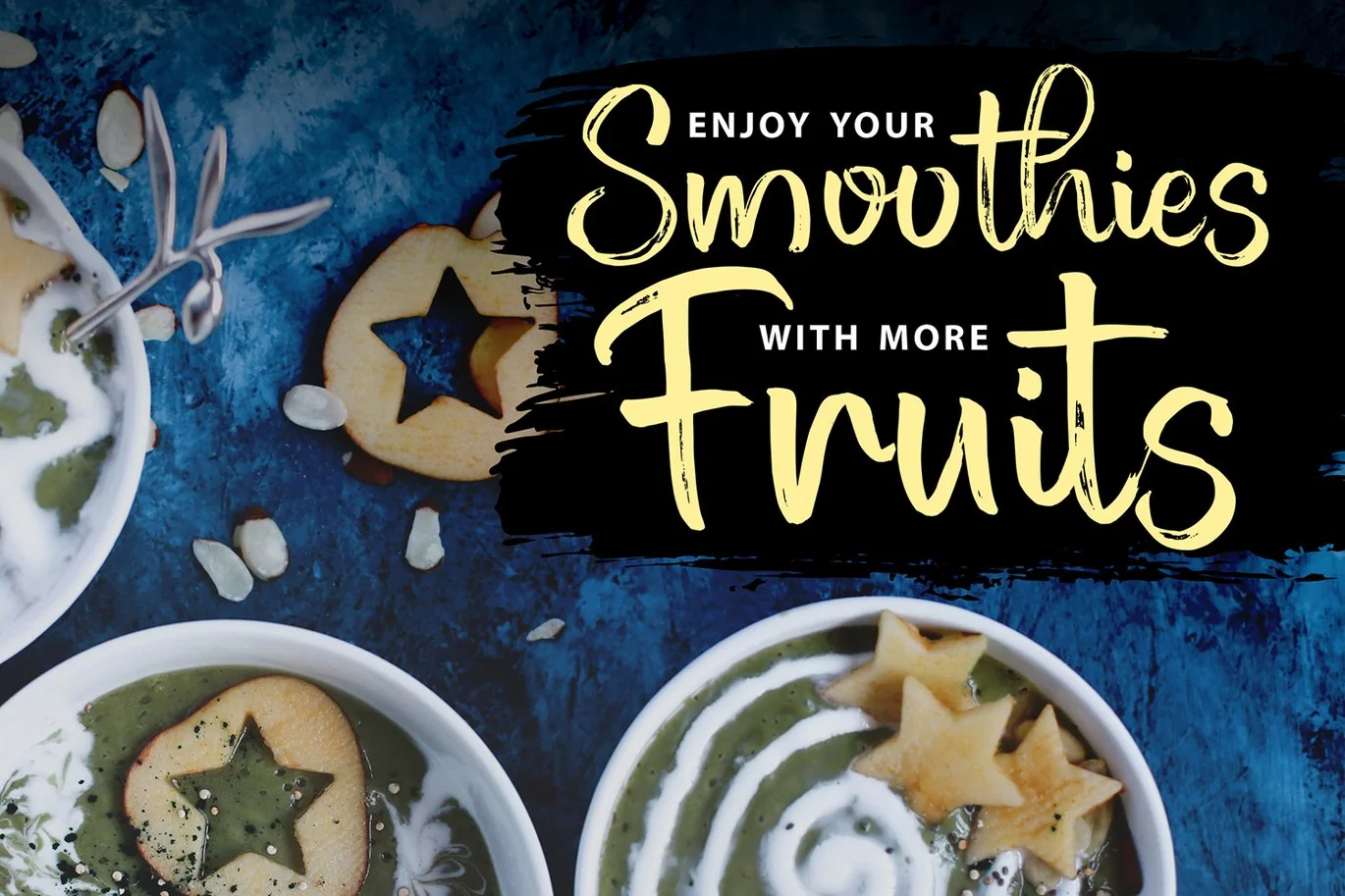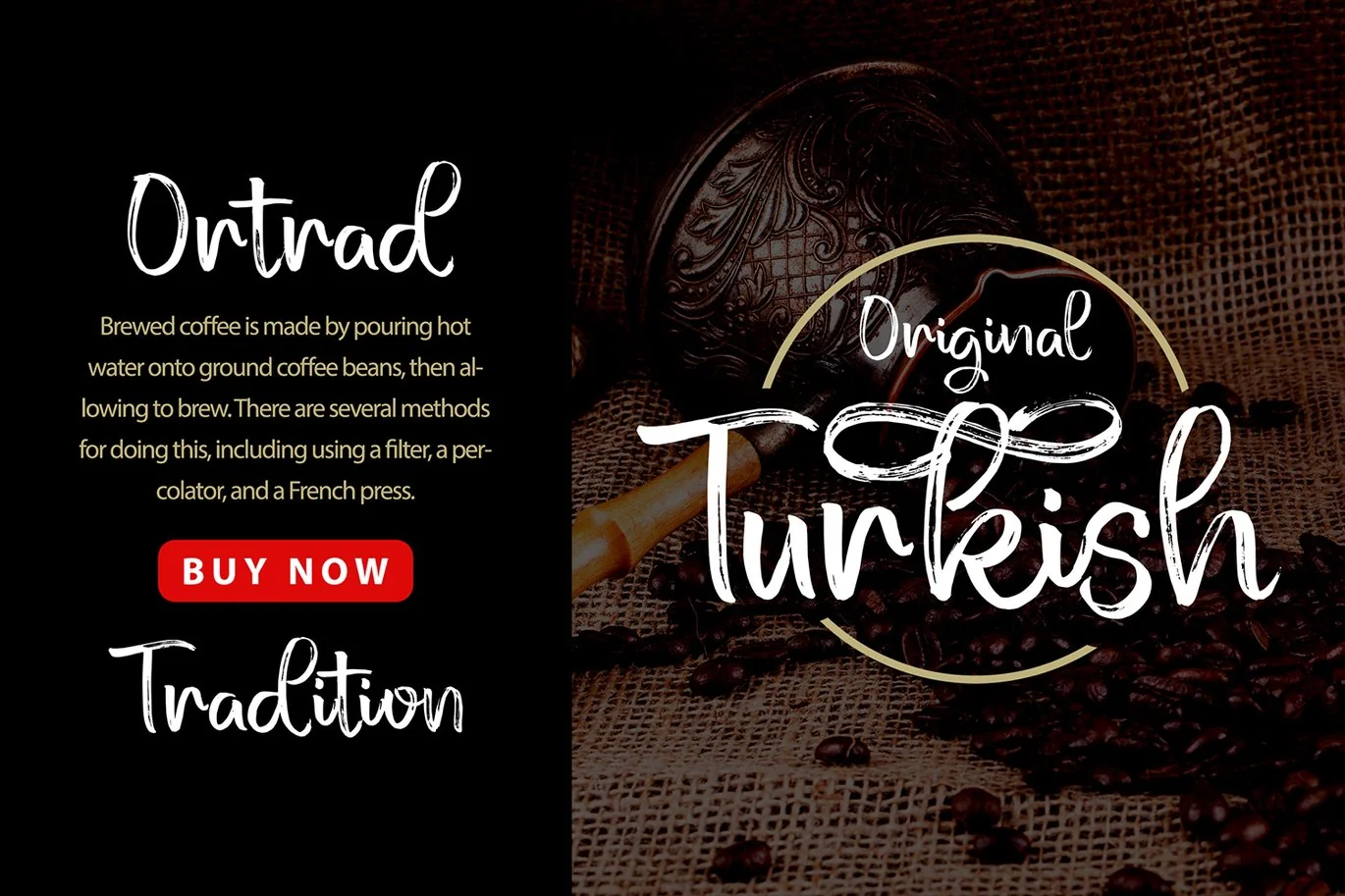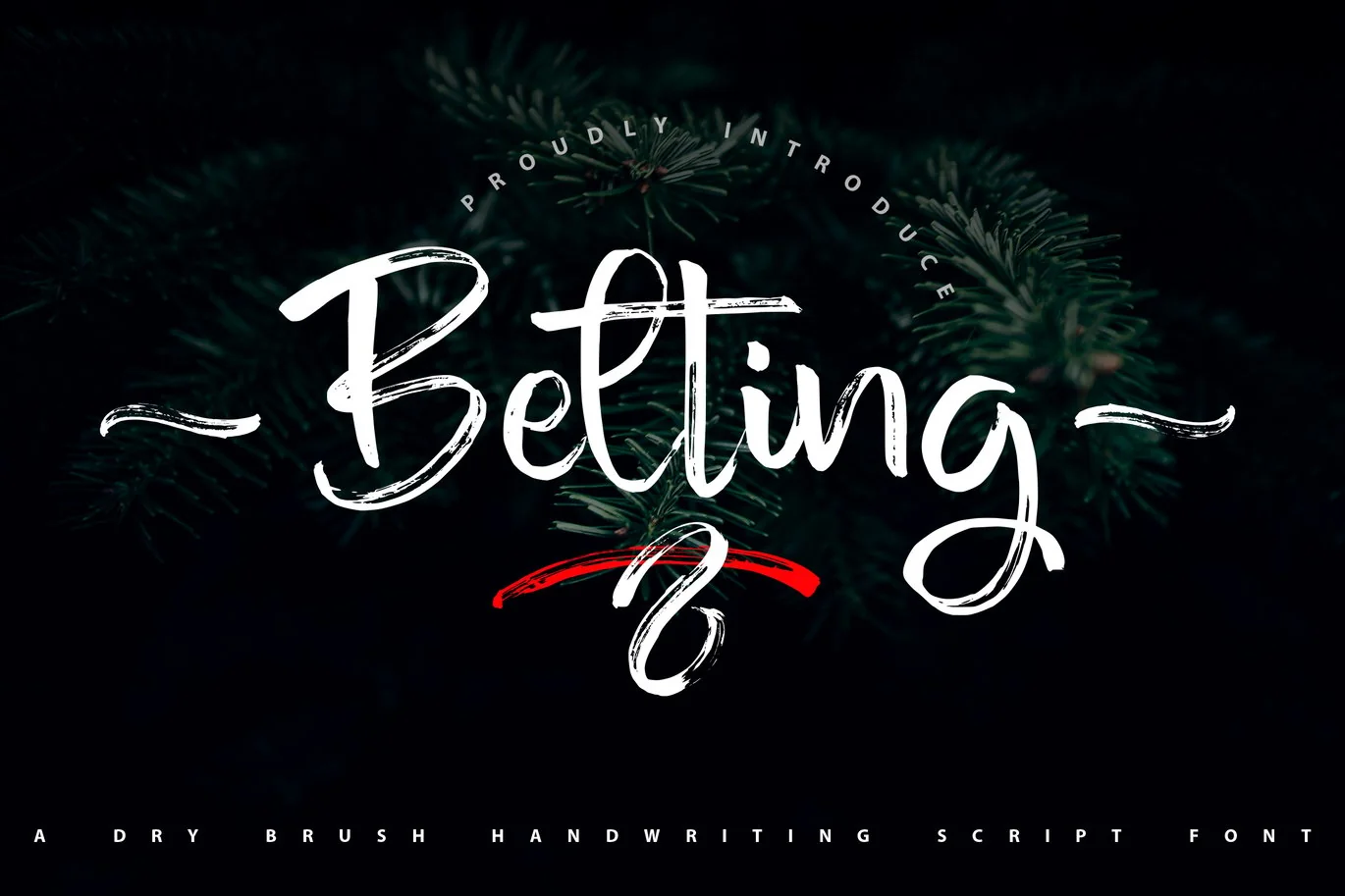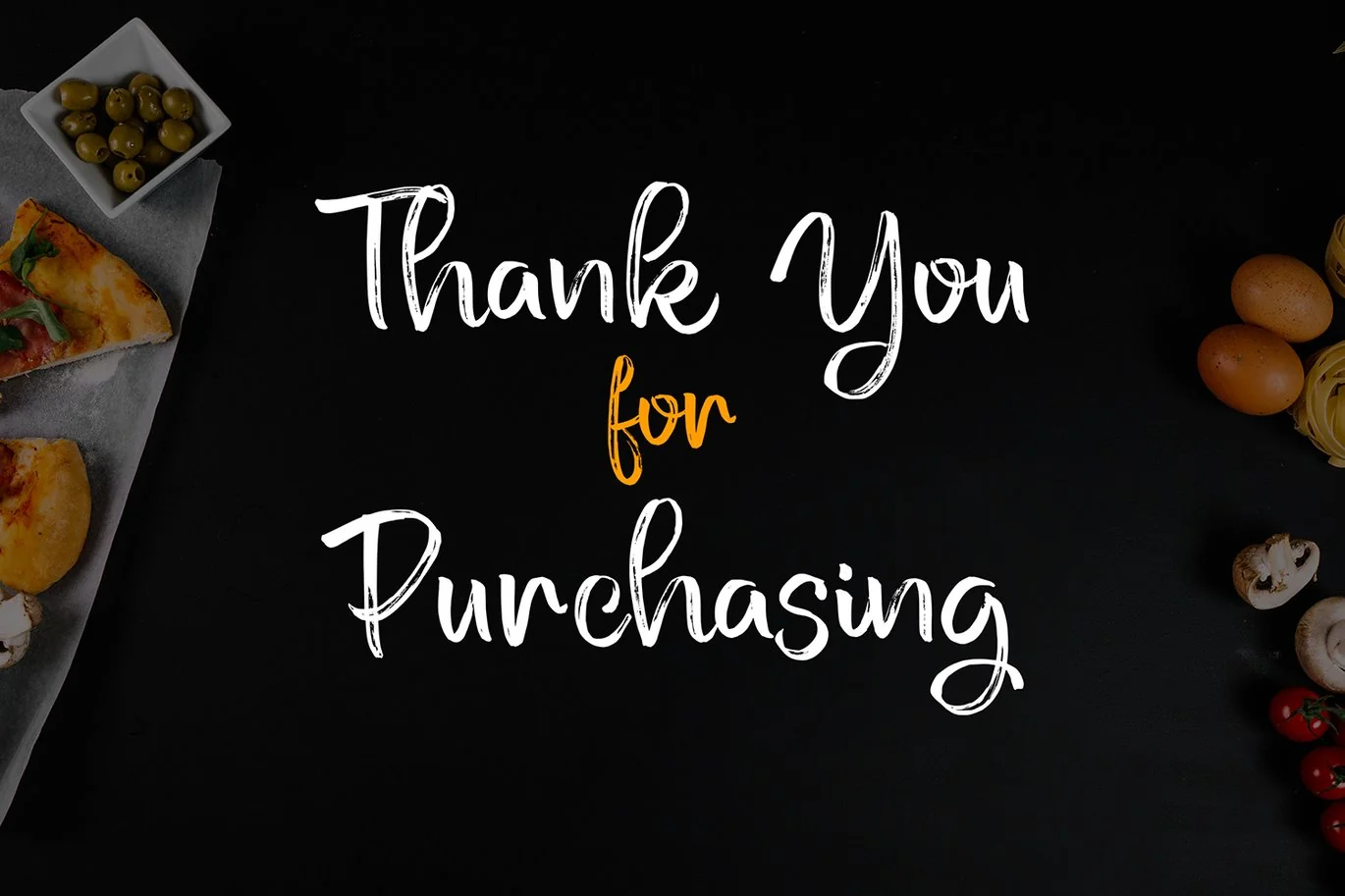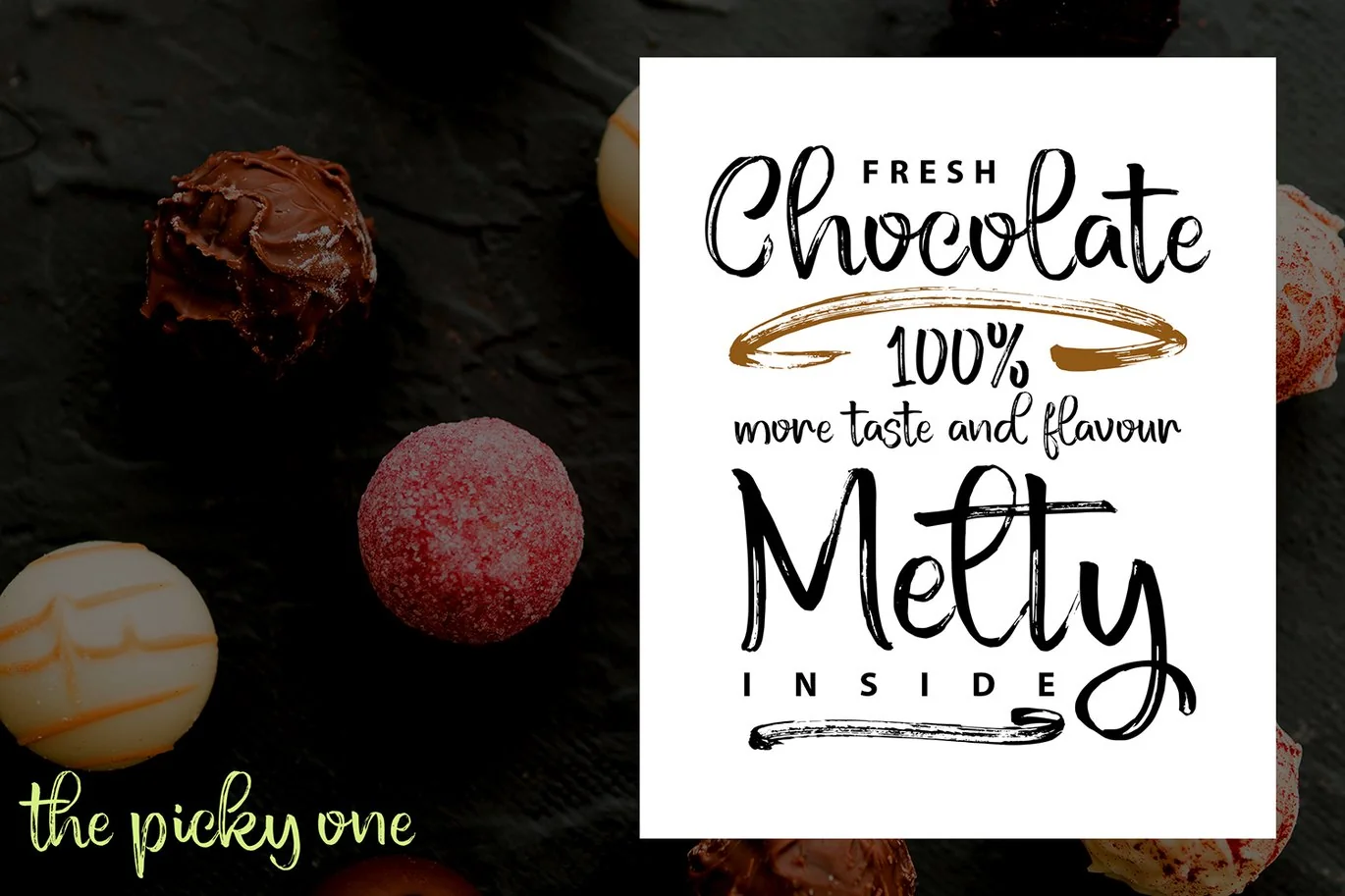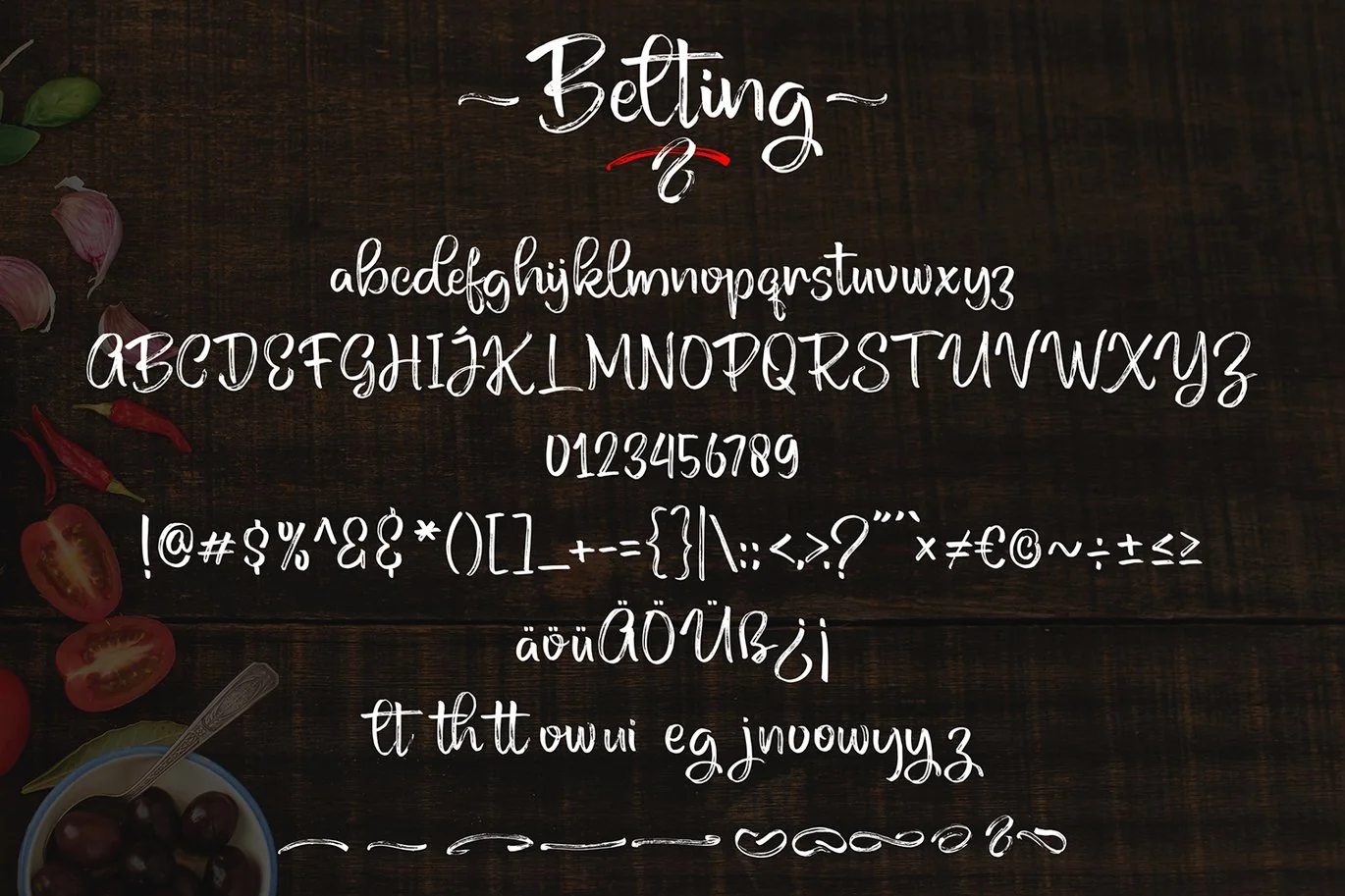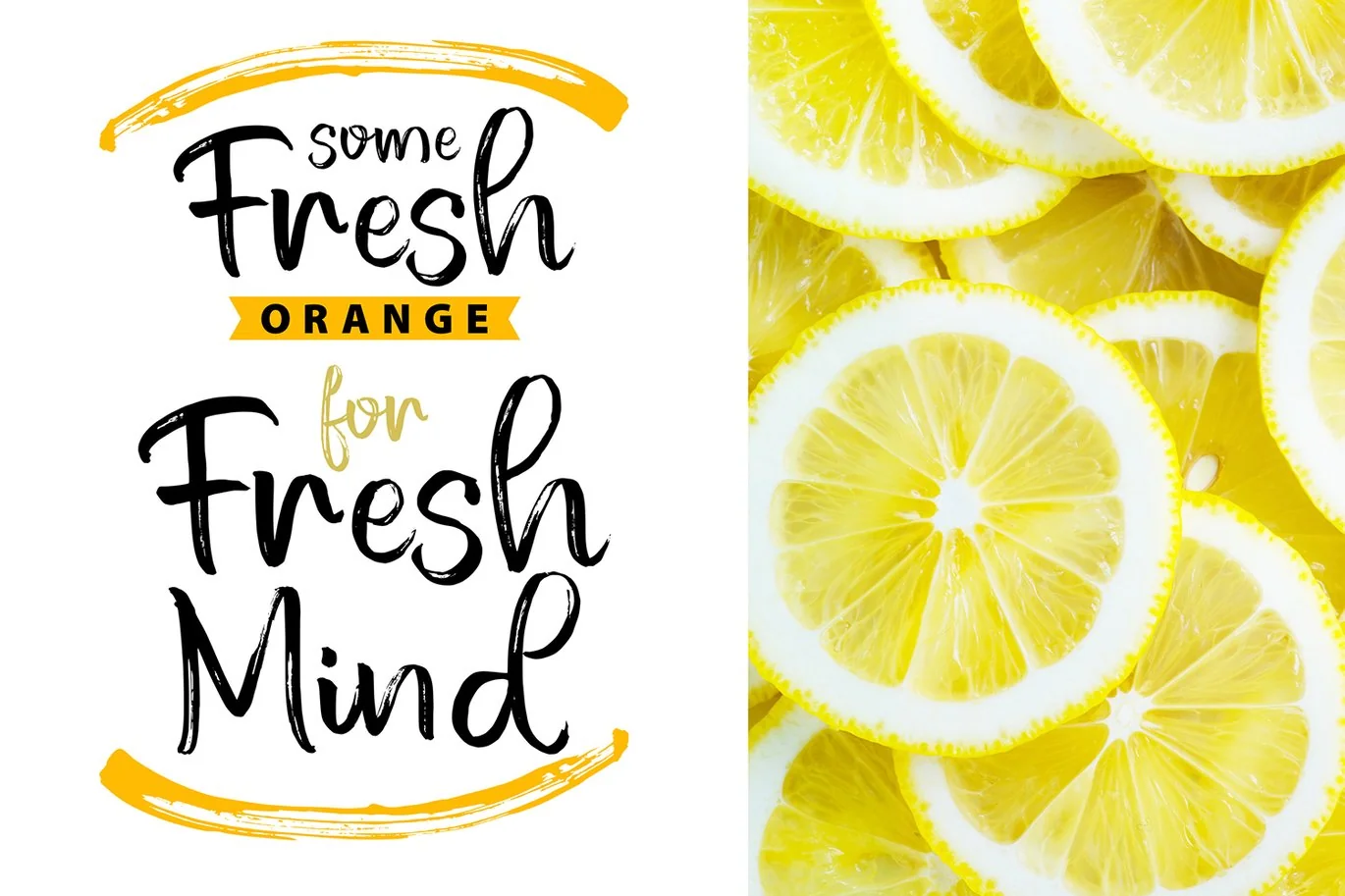
Belting | Dry Brush Handwriting Script Font
Belting | Dry Brush Handwriting Script Font with a calligraphy style, So beautiful on invitation like greeting cards, branding materials, business cards, quotes, posters, and more!